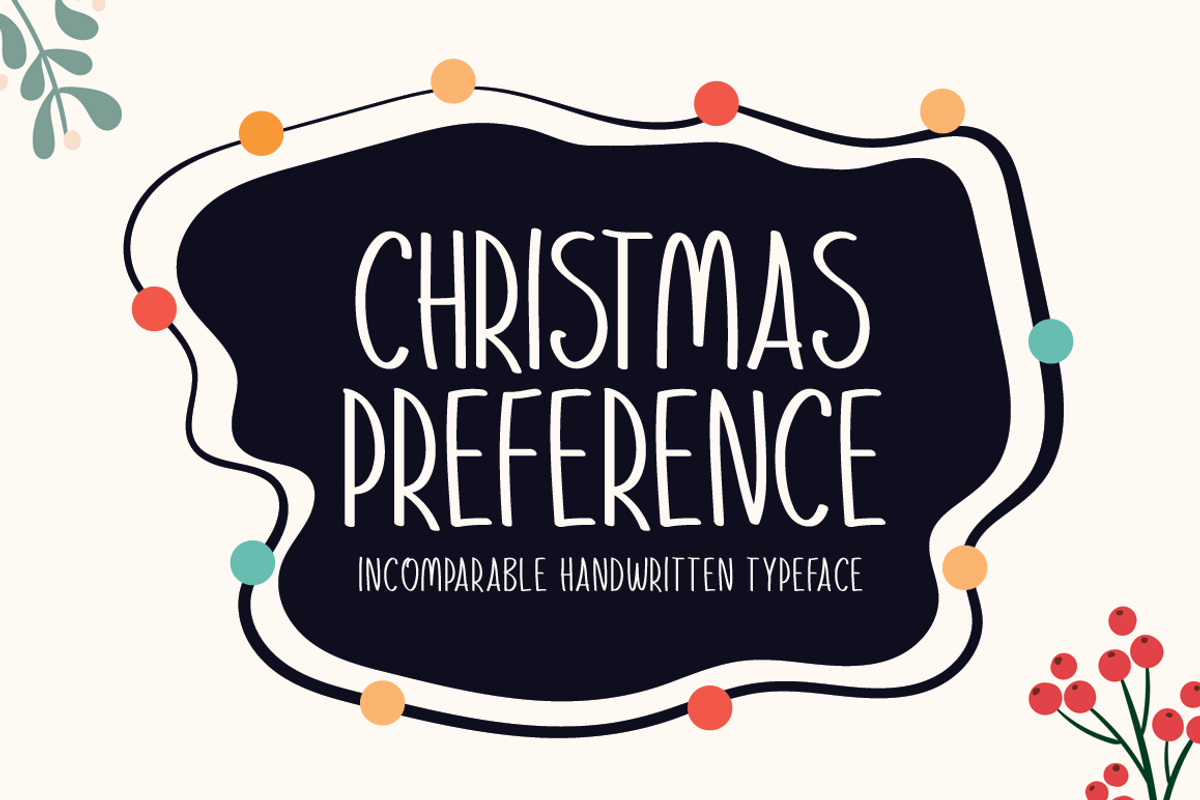
Christmas Preference Typeface Free Download
Christmas Preference Typeface Free Download is a festive and decorative font crafted specifically for holiday-themed projects. With playful letterforms, whimsical flourishes, and a cheerful spirit, this typeface is perfect for Christmas cards, seasonal branding, event flyers, gift tags, and social media graphics that need a touch of holiday magic.
Bringing warmth and joy to your designs, Christmas Preference Typeface Free Download captures the essence of the festive season. It pairs beautifully with illustrations, ornaments, and cozy color palettes, making it an ideal choice for both personal and commercial holiday creations.